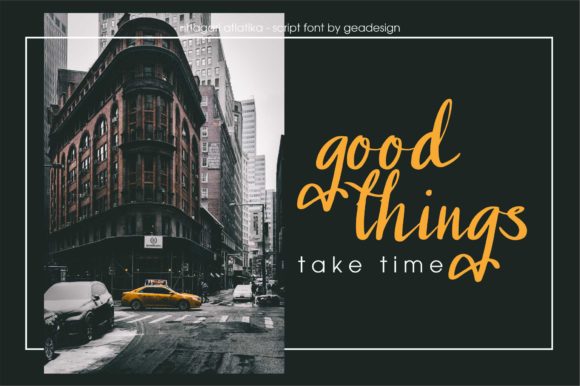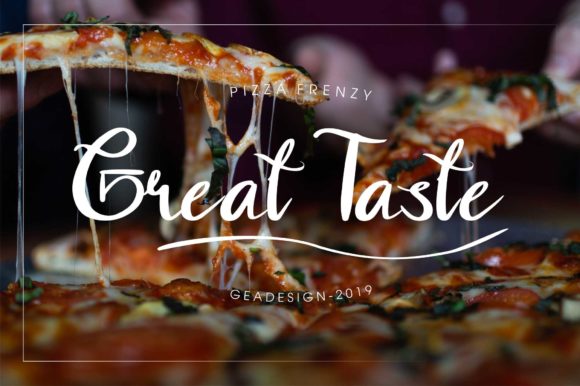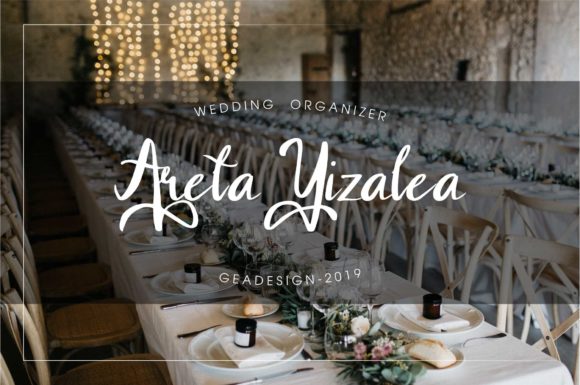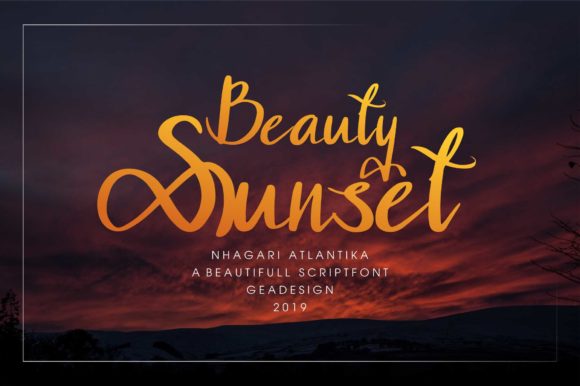
Introduction to Nhagari Atlantika Font
The Nhagari Atlantika is a beautiful handwritten script font.
Its look casual, beautiful and is perfect for wedding designs, branding, quotes, and much more .